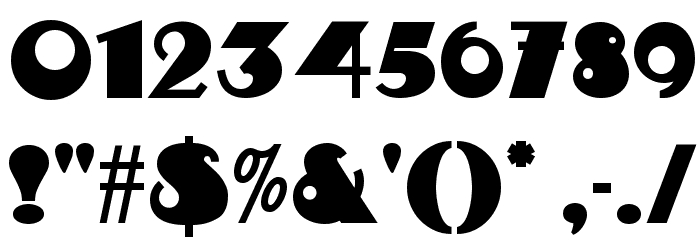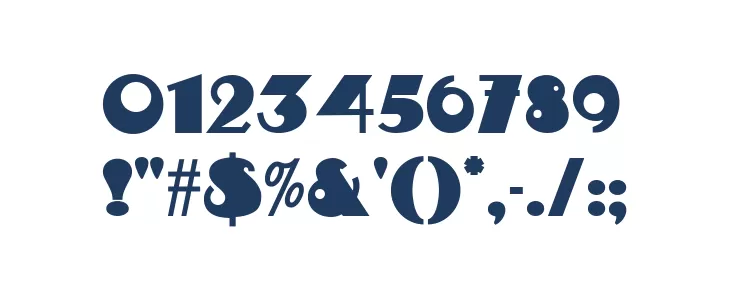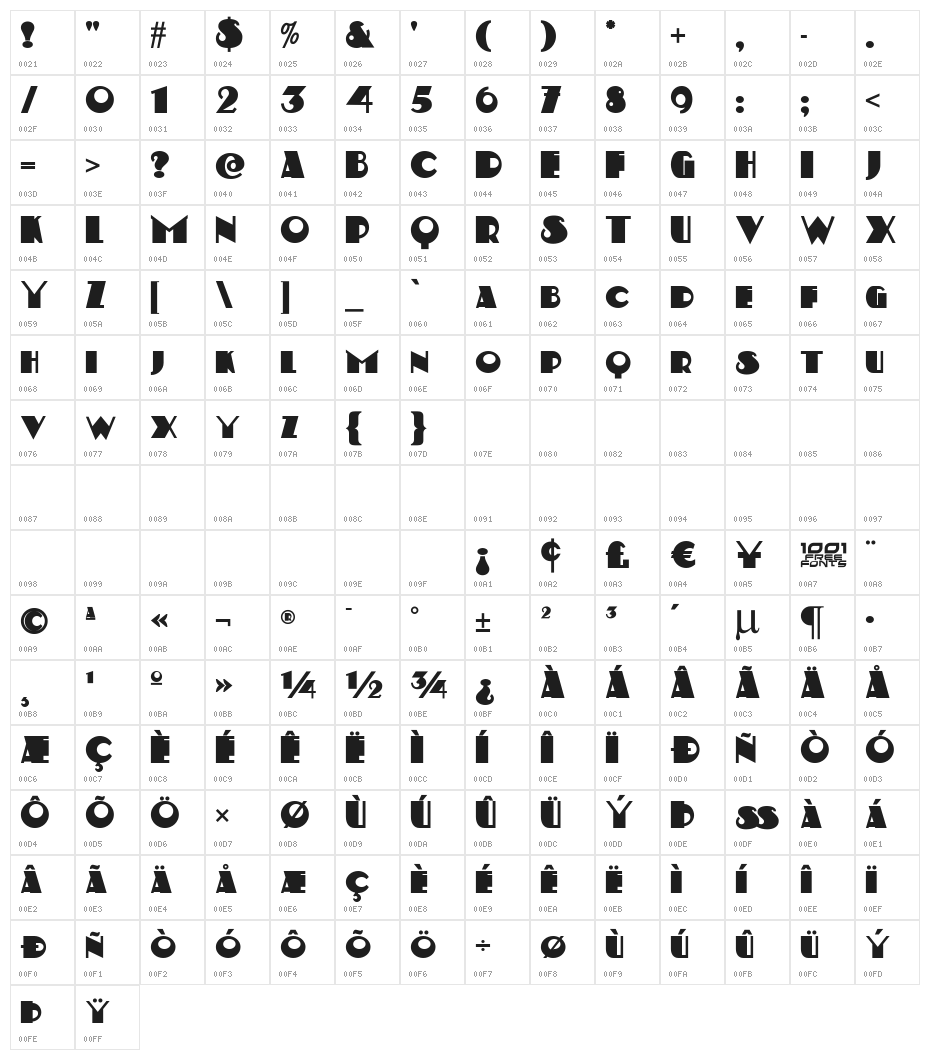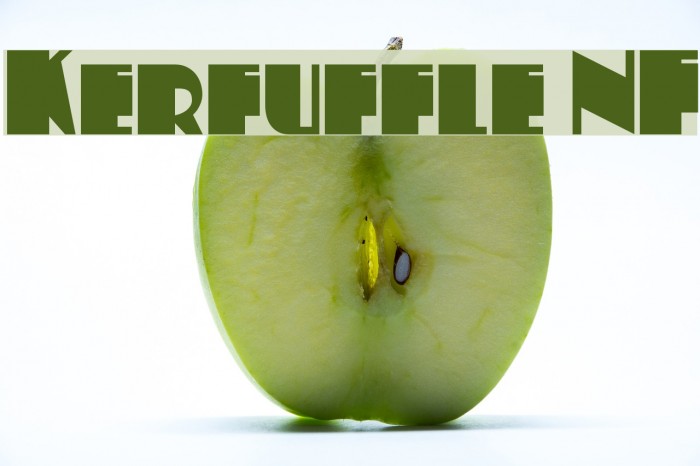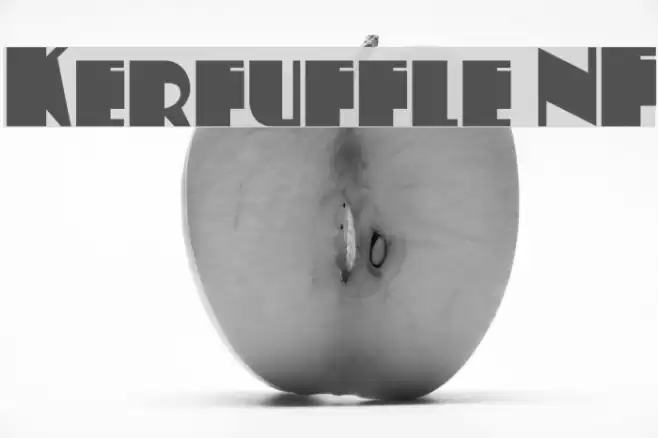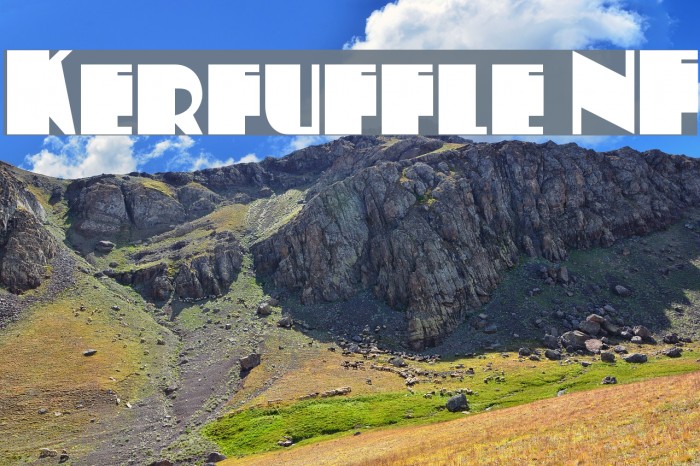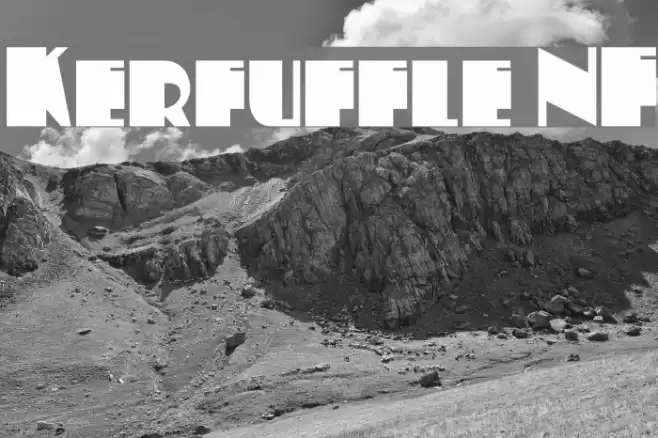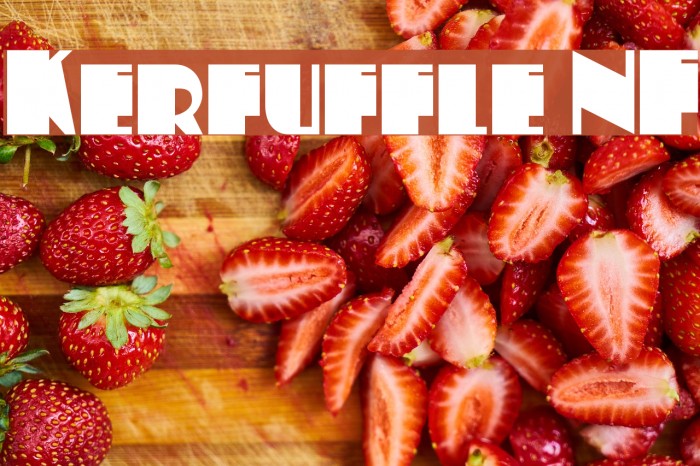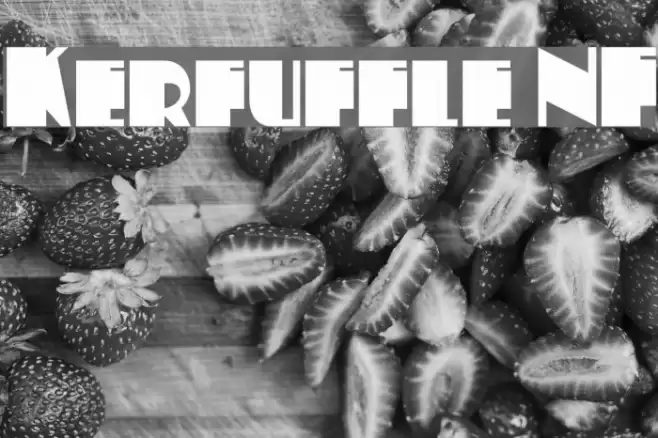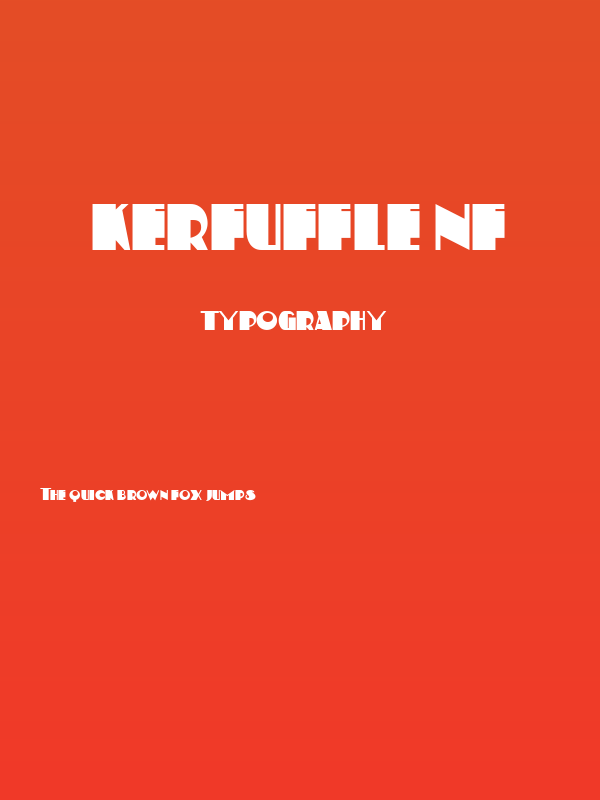
Kerfuffle NF Font
Kerfuffle NF Description
This font features a bold and striking design with geometric and angular elements. The uppercase letters have a strong presence, characterized by sharp angles and a consistent stroke width that gives a sense of stability and modernity. The lowercase letters maintain the boldness, with some playful curves that add a unique flair. Numbers are equally bold, ensuring visibility and impact. Special characters are designed to match the overall aesthetic, making them suitable for various creative applications. The font's style is both eye-catching and versatile, perfect for making a statement.